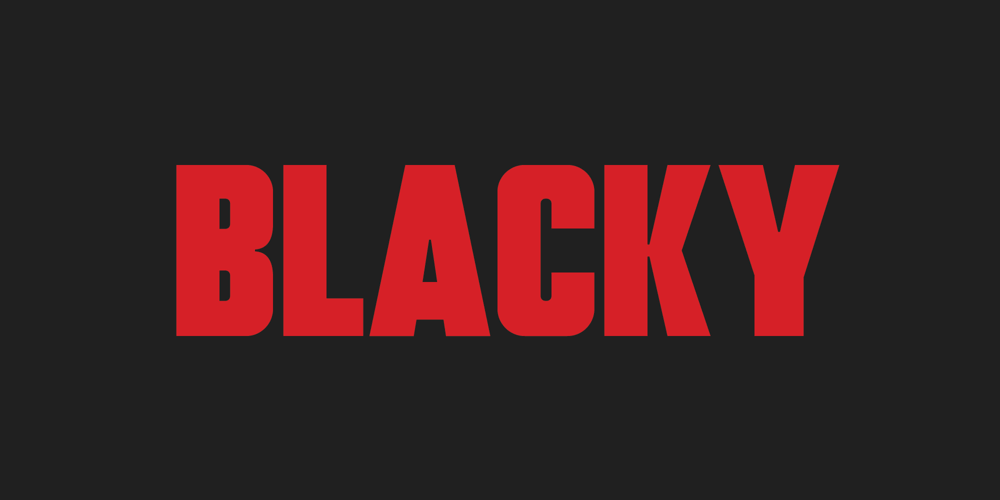
Blacky
Blacky font
Blacky Font Family was designed by Afdalul Zikri and published by Afdalul Zikri. Blacky contains 3 styles and family package options. Blacky is a powerful and elegant display typeface. Inspired by design styles that are currently trending, and this is the answer to the design ideas that you will apply in this modern era, with a thick and strong style in each letter of the Blacky font as it is specialized in the world of design.Blacky has 3 font styles including:-Regular-Semi Rounded-RoundedBlacky works great on posters, social media, headlines, titles, large print – and it works on just about anything because it’s a San-Serif font.